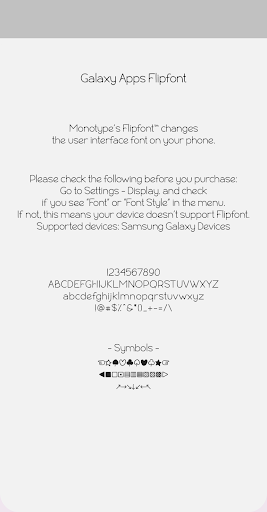
Nm LikeYou
Nm LikeYou is a lovely and cute font and has good readability. Customize your phone with LikeYou. Please try this font and leave your feedback.